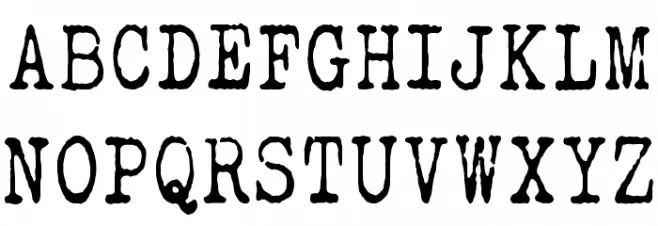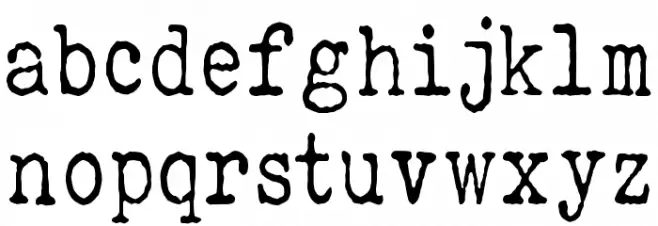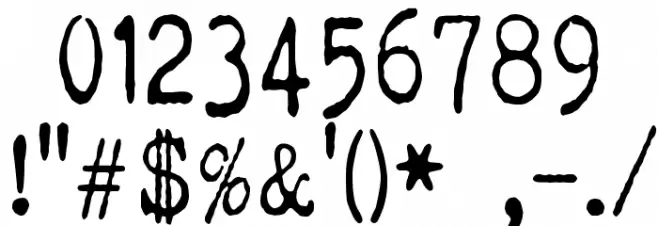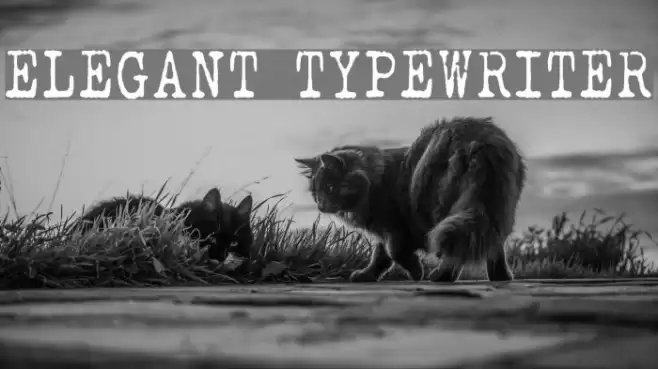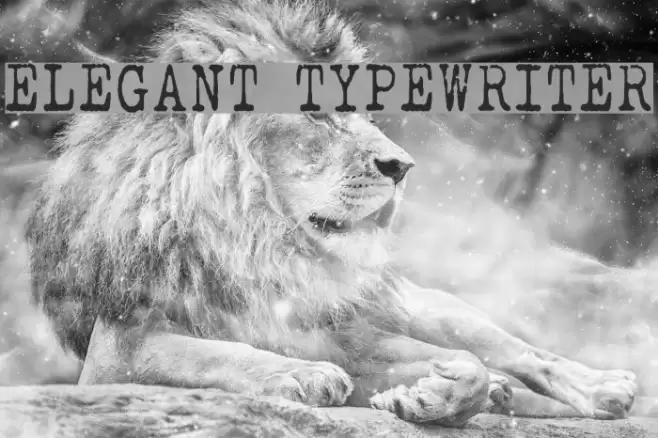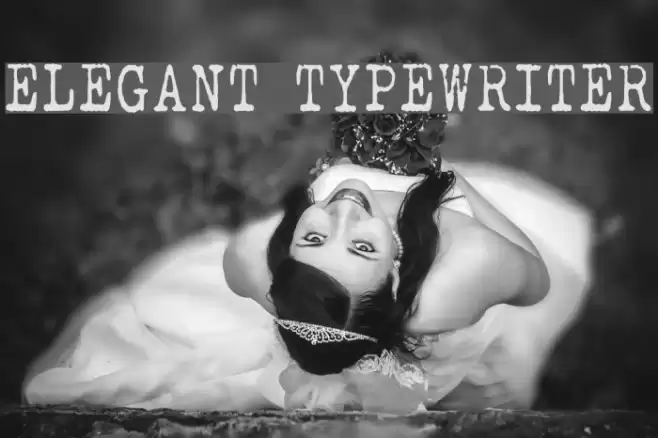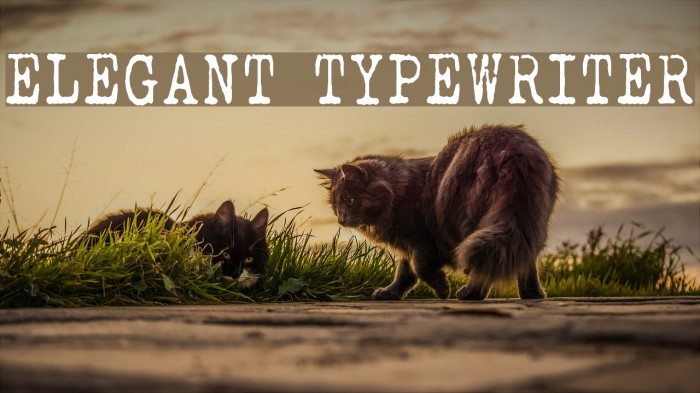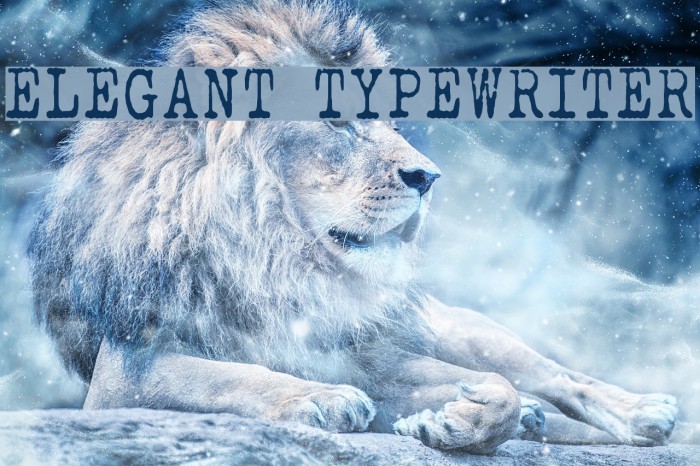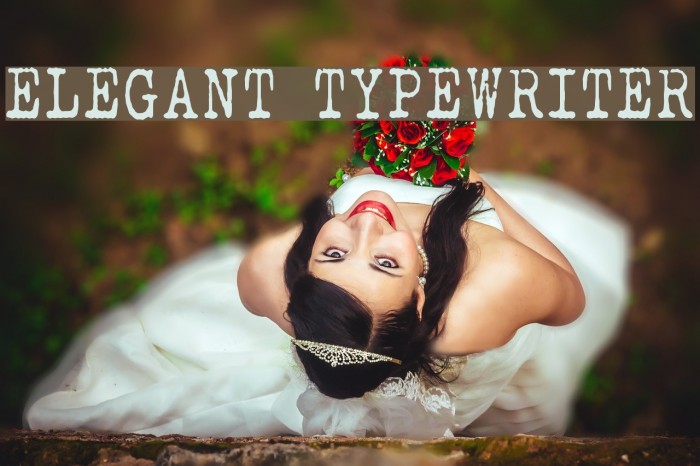
ELEGANT TYPEWRITER
This font features a classic typewriter style with a touch of elegance, characterized by its slightly irregular and textured appearance. The uppercase and lowercase letters maintain a consistent design, with rounded edges and a vintage feel. The numerals and special characters complement the alphabet with similar styling, making it suitable for projects that require a retro or nostalgic look. The font's distinct, slightly worn appearance adds character and charm, reminiscent of old typewritten documents.
A vintage typewriter-style font with a textured, elegant appearance.
- Proposed Projects: Ideal for vintage-themed designs, retro posters, typewriter-style documents, and creative projects requiring a nostalgic touch.
- Category: Monospaced
- Overall Style: Vintage
- Use Case: Headlines, Logos, Posters